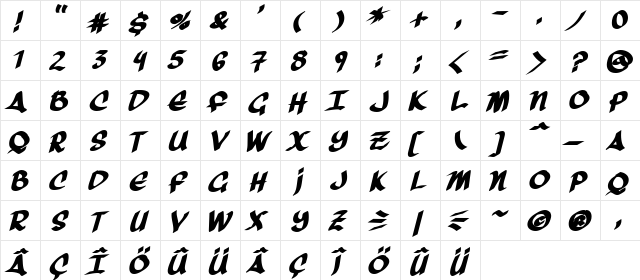
Arrow Head Bold
Design Context for Arrow Head Typeface
Arrow Head is a composed and adaptable typeface that performs quietly and consistently across a wide range of design contexts. The heavy weight commands attention and anchors typographic hierarchies.